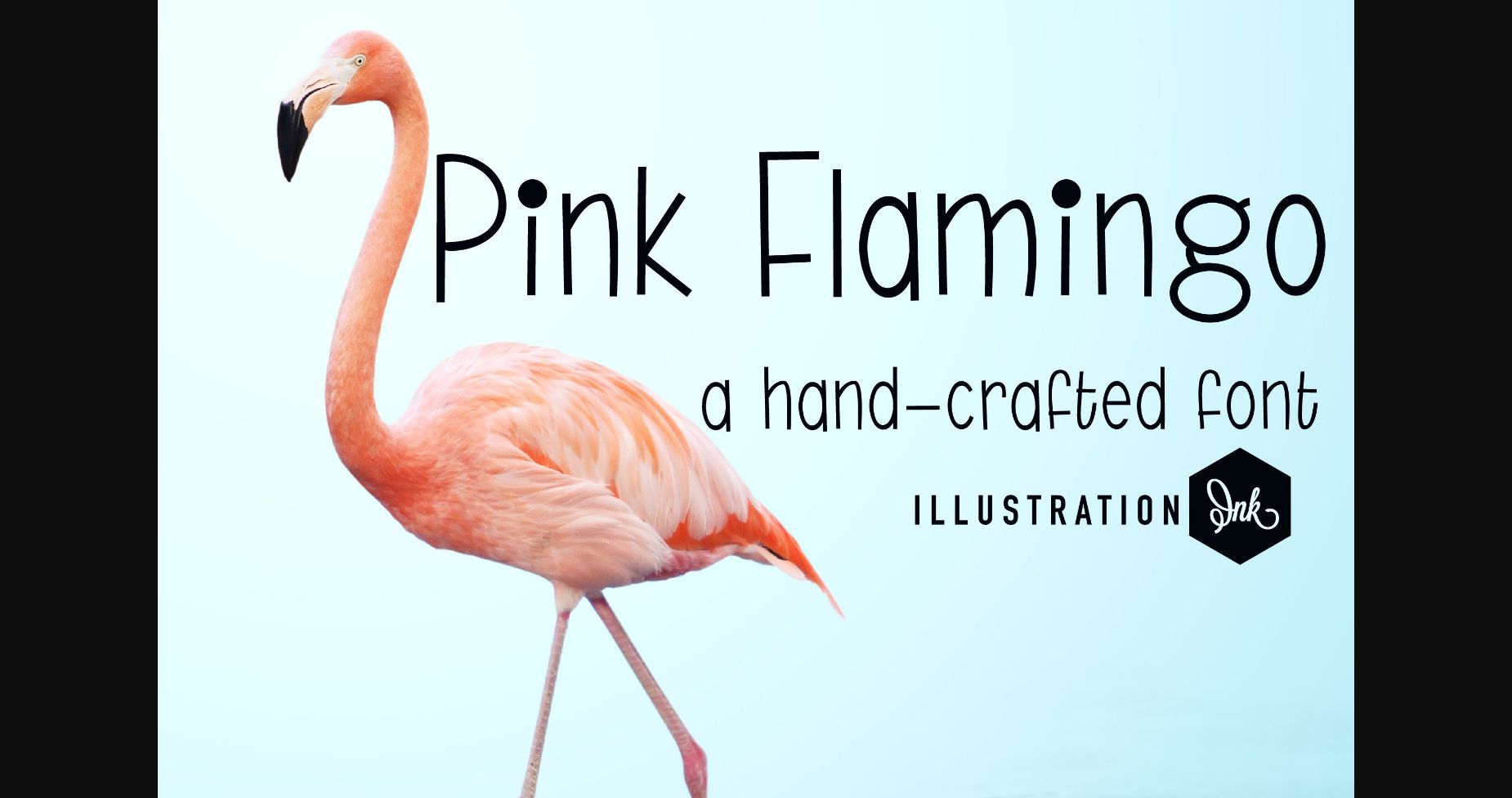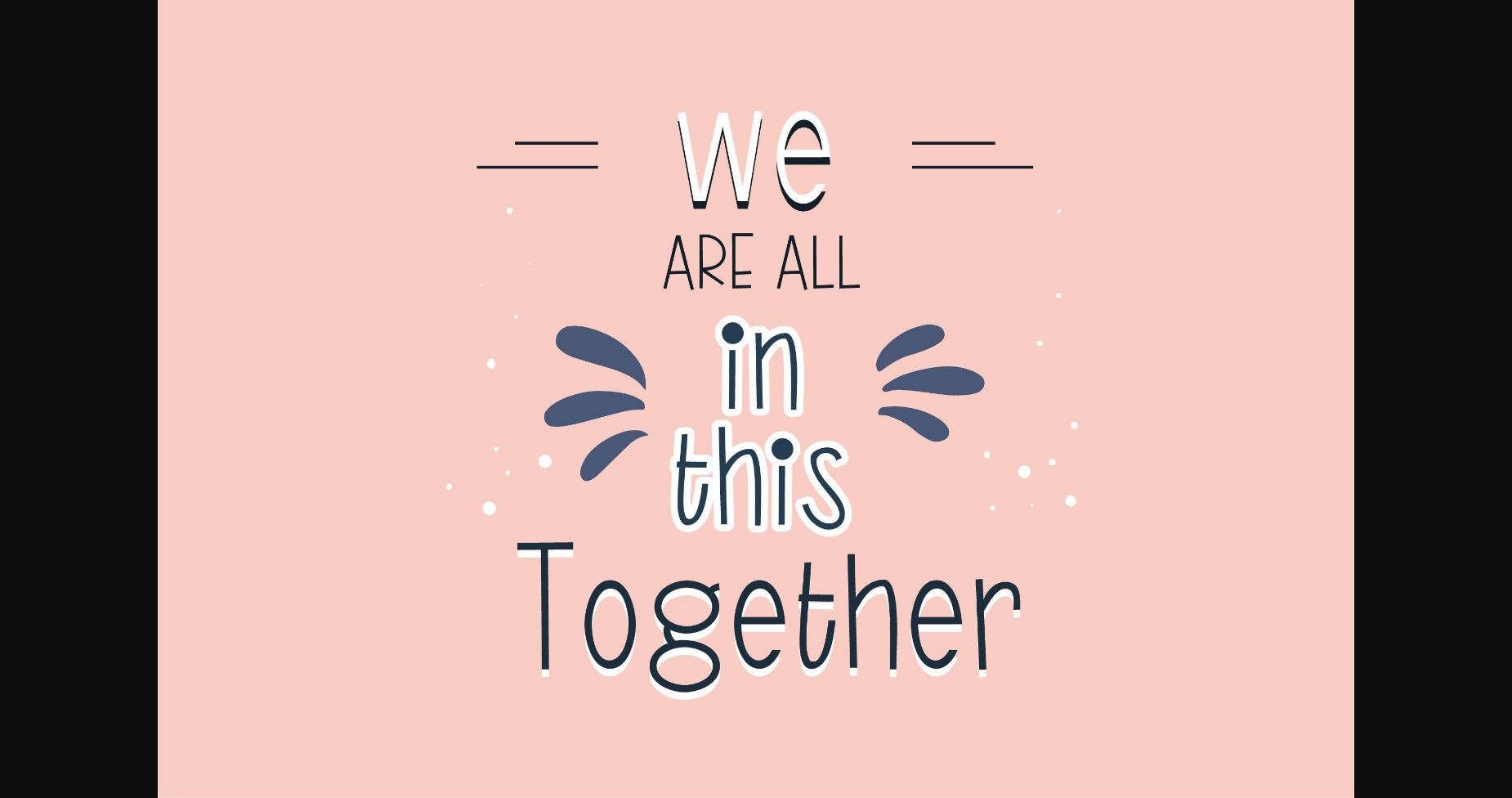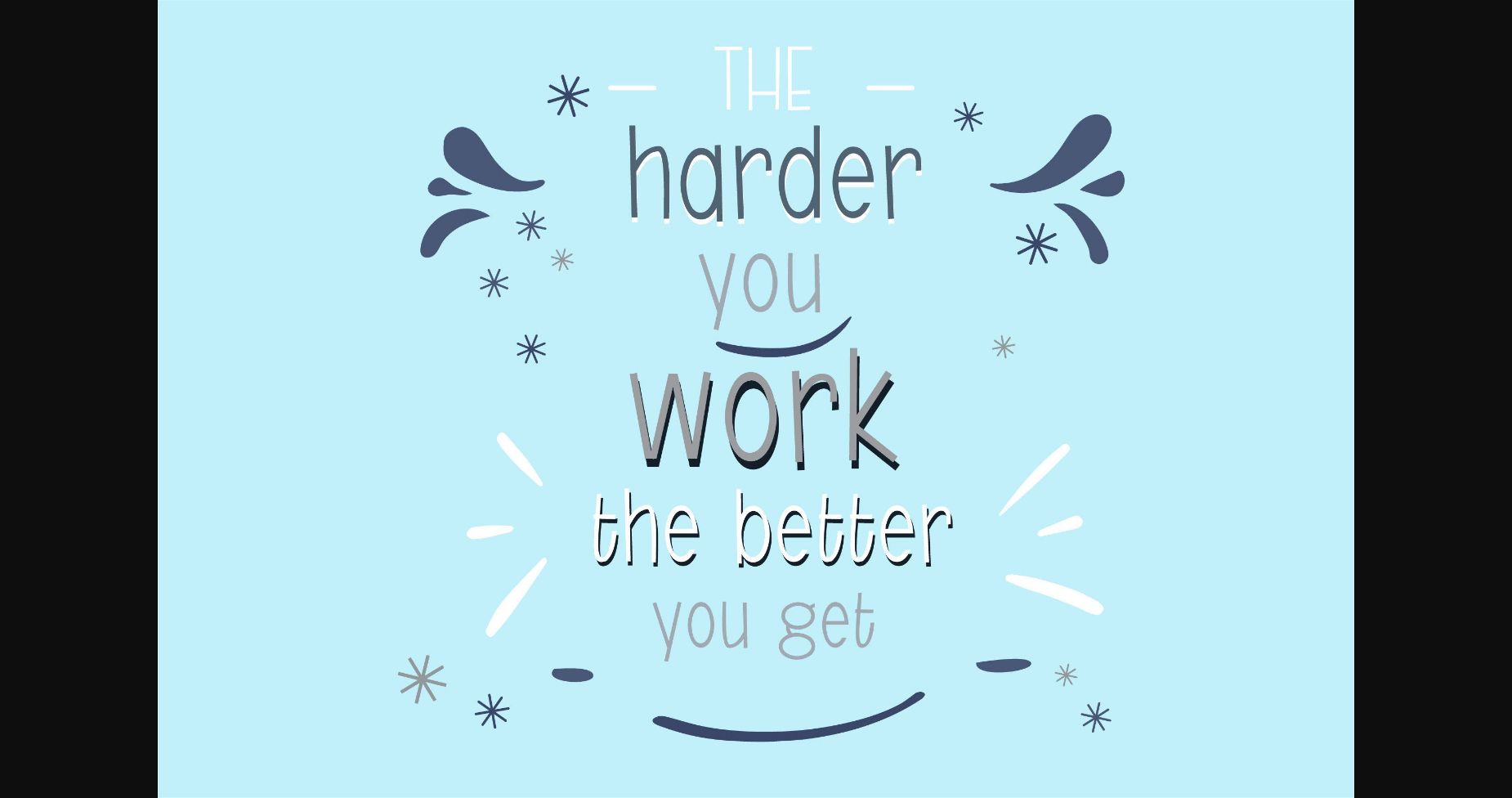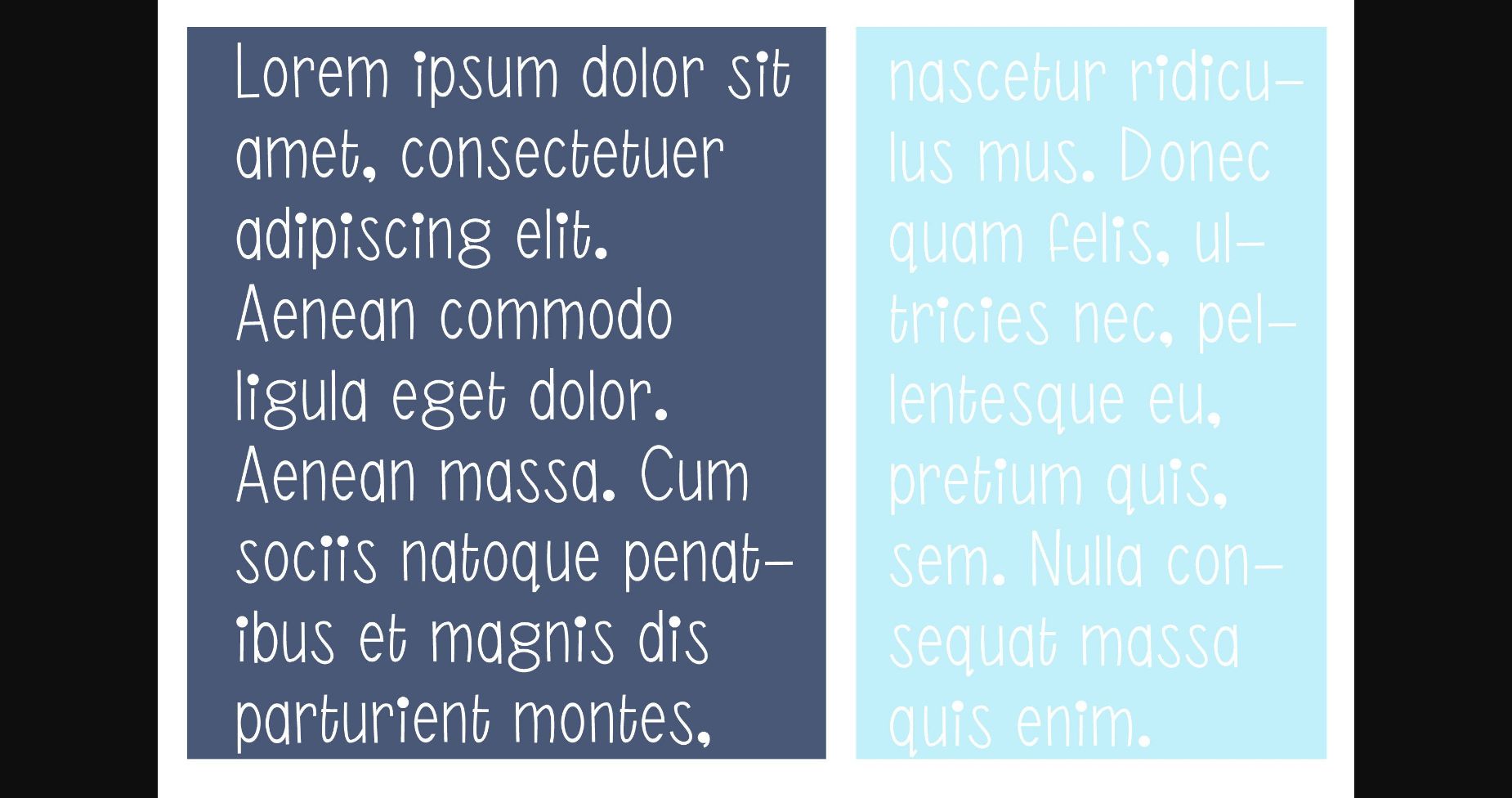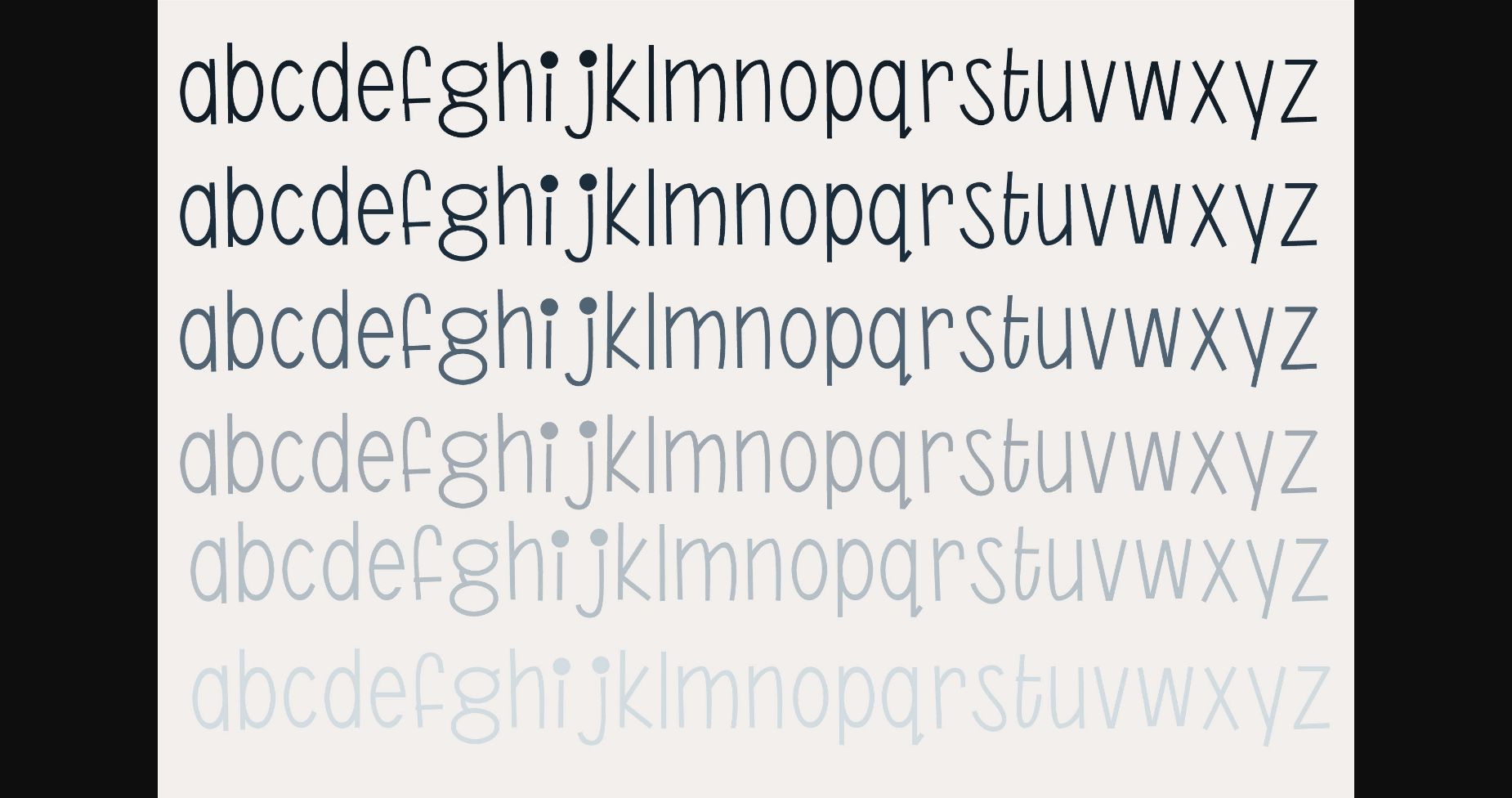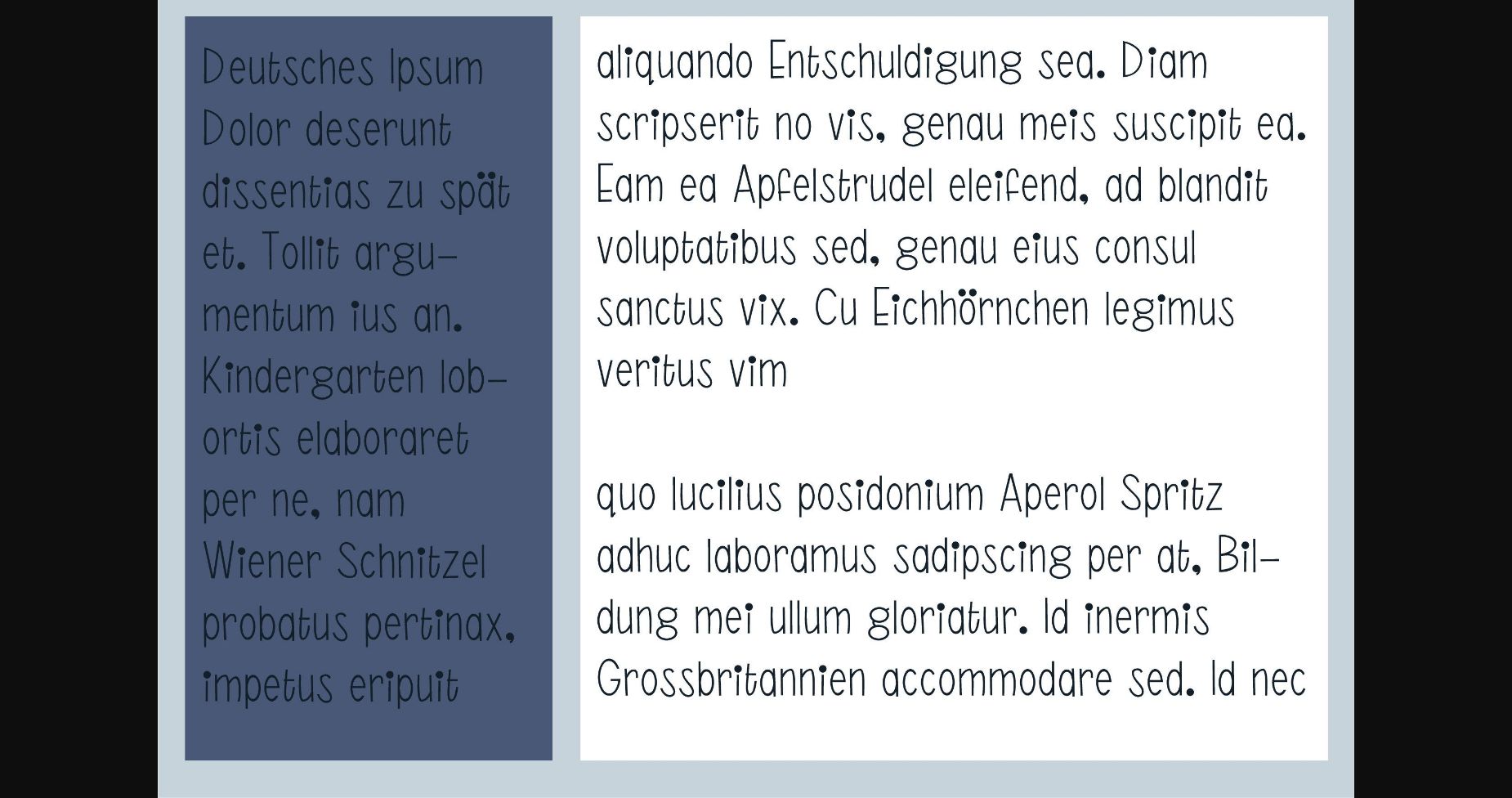
HomeSans Serif FontsPink Flamingo Font Sans Serif Fonts Pink Flamingo Font FacebookXPinterestWhatsApp 1 of 9 ... Pink Flamingo Font Poster 2... Pink Flamingo Font Poster 3... Pink Flamingo Font Poster 4... Pink Flamingo Font Poster 5... Pink Flamingo Font Poster 6... Pink Flamingo Font Poster 7... Pink Flamingo Font Poster 8... Pink Flamingo Font Poster 9... About Pink Flamingo Font This simple hand-written sans serif is a casual and very youthful print. It features lovely slim characters and a modern vibe to go well with any creation! DOWNLOAD NOW People also explored Jellybean Giraffe Font Tabinda Font Berkat Yakin Meithafest Font Christmas Summer Font Pandu Rina Font Font Hunter Simple Style Font Rossellati Font 368 0 TagsPink Flamingo Font Previous articleSwigert FontNext articleJunction Font LEAVE A REPLY Cancel reply Comment: Please enter your comment! Name:* Please enter your name here Email:* You have entered an incorrect email address! Please enter your email address here Website: Save my name, email, and website in this browser for the next time I comment. Personal Use Free Soria Personal Use Free Read more about this font Midnight Show Personal Use Free Read more about this font Ciggs Personal Use Free Read more about this font Lover Loves Personal Use Free Read more about this font BLOG Using Fonts in Digital Marketing: Tips to Strengthen Your Brand Identity In the realm of digital marketing, every visual element plays a crucial role in shaping a brand's identity, and fonts are no exception. The... 5 Fonts That Will Dominate Design Trends in 2026 Top 7 Google Fonts Alternatives for Faster and Privacy-Friendly Web Design (2025) Where to Buy American Fonts Online in 2024